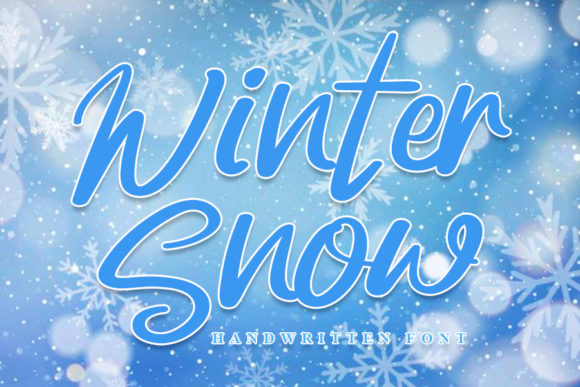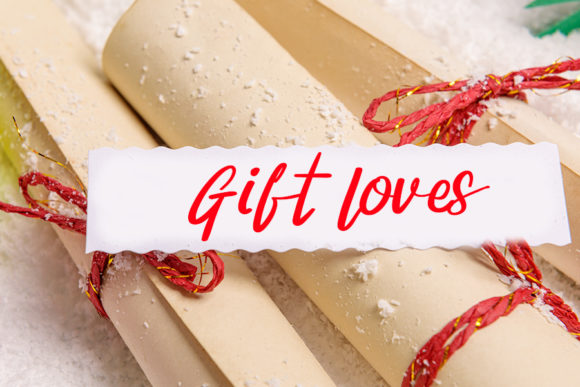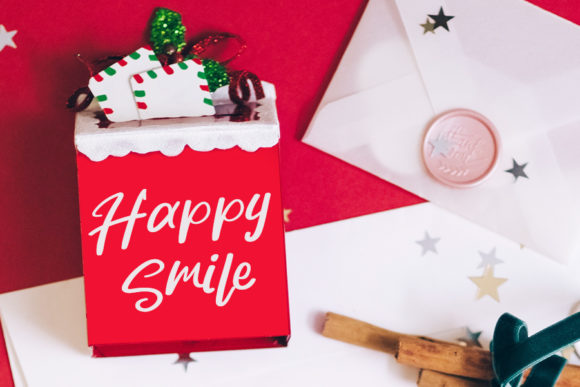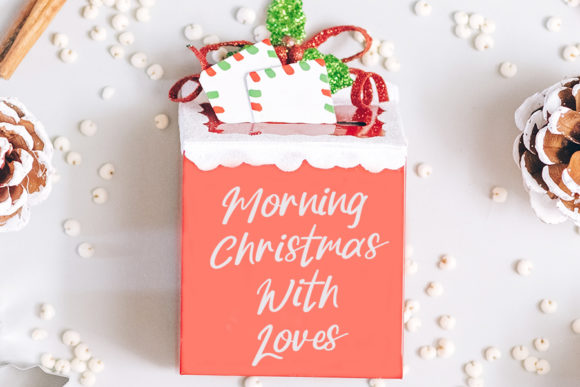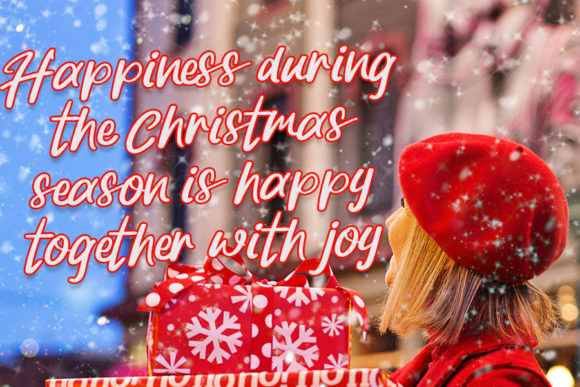
Winter Snow Font
About Winter Snow Font
Winter Snow is a modern handwritten font. This font is suitable for a wide variety of projects such as making flyers, mockups, logos, banners and more!